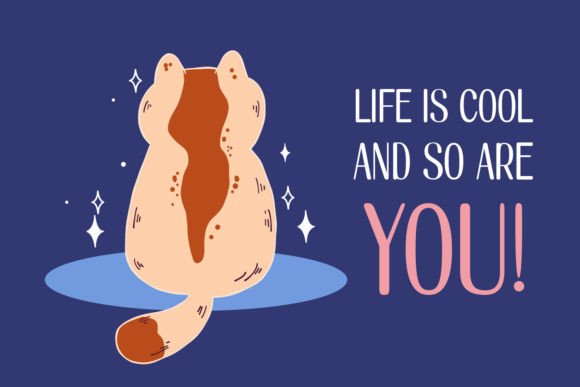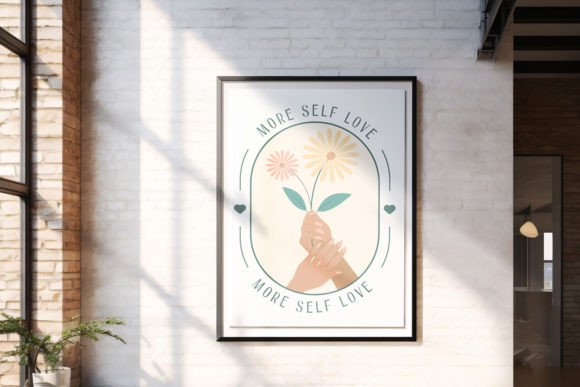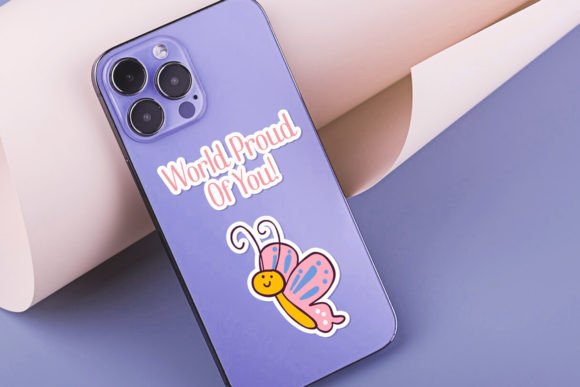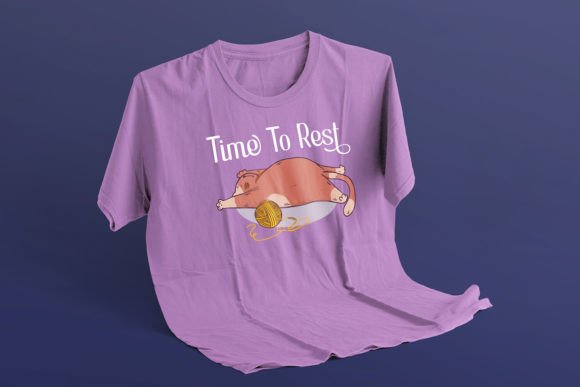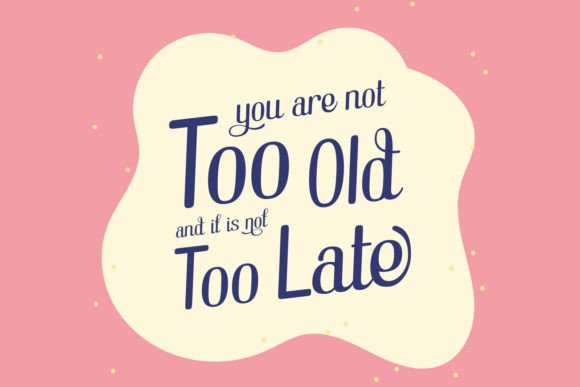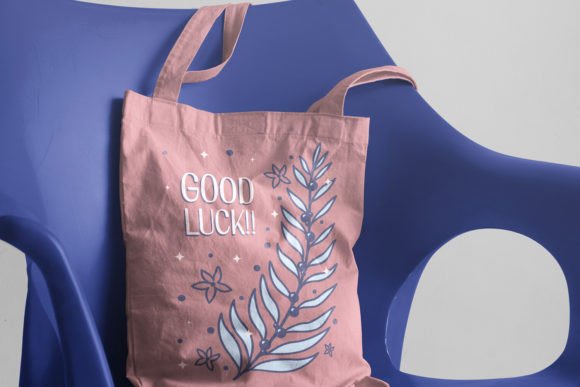
Introduction to Birgaten Font
Birgaten is a display font that brings a touch of whimsy to your designs.
With a slightly playful style, it captures a sense of creativity The font is made with a not-too-thick weight, ensuring readability while maintaining its unique character.